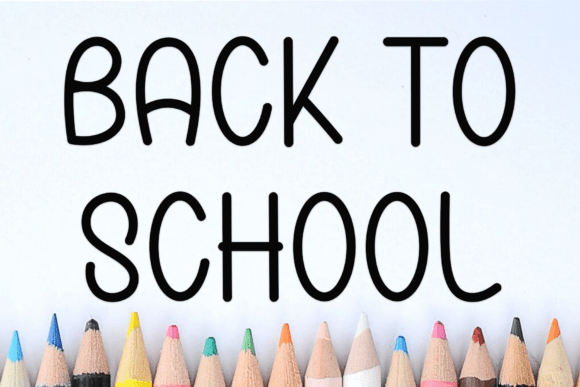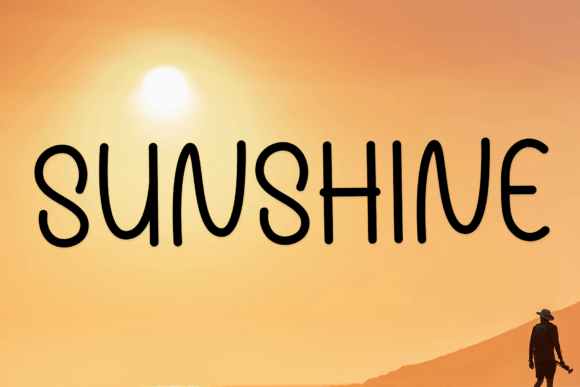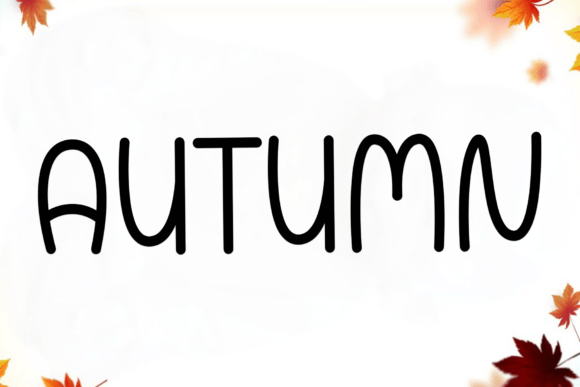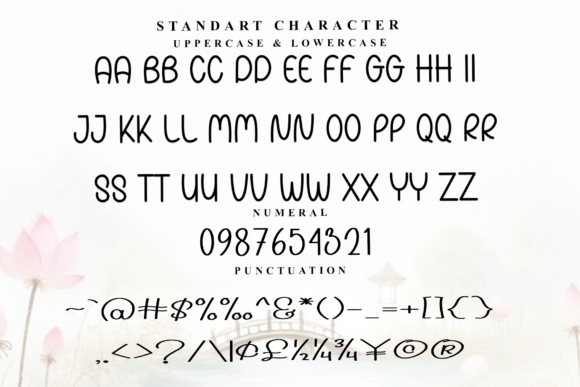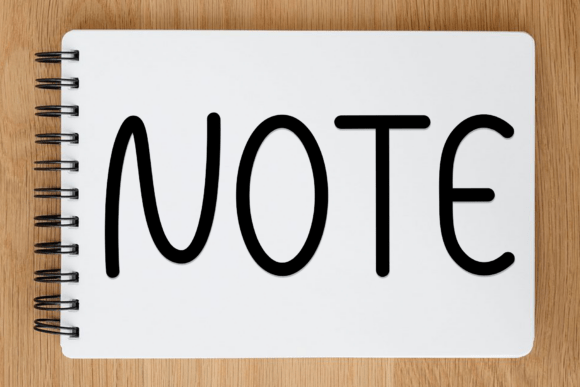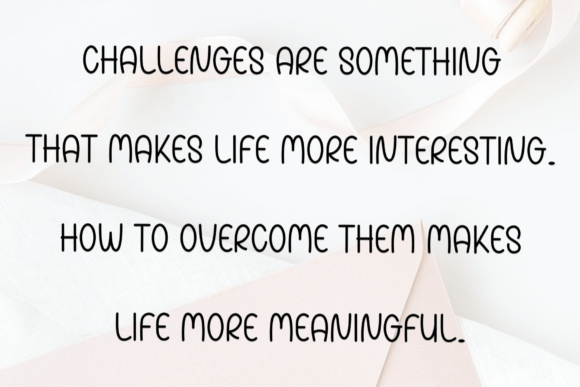
Discovering the Perfect Font for Playful Projects
As a designer, you’ve probably had that moment when you’re staring at a blank page, trying to come up with the perfect font to capture the essence of your project. It’s like searching for a missing puzzle piece – until you find it, everything else seems incomplete. For me, that moment came when I stumbled upon the delightful , a soft and friendly handmade font that instantly added a warm and playful vibe to my design.
Developed with kid-centric designs and toy packaging in mind, is the perfect choice for projects that require a rounded, clean aesthetic. Its unique charm and versatility make it a valuable addition to any designer’s toolkit. Whether you’re working on a children’s book, a toy box design, or a playful website, is sure to bring a smile to your face and delight your audience.
Hamster Font Key Features
- Font Family: Hamster Font is a sans-serif font family designed for digital and print use.
- Unique Characteristics: Features a unique, rounded design with subtle curves and a friendly feel, making it ideal for children’s books, educational materials, and other applications requiring a playful tone.
Hamster Font Review
As a designer, I was excited to try out the “Hamster Font”. Overall, I think it’s a cute and quirky addition to any design project. Here’s what I liked about it: ✨
- The font is playful and fun, perfect for creating a whimsical atmosphere.
- The character set is quite extensive, with a good variety of glyphs and symbols.
- The font is highly customizable, allowing you to adjust the size, color, and even the individual stroke widths.
However, I did encounter a few limitations: ⚠️
- The font can be a bit too cutesy for some projects, which might make it hard to use in more serious or formal designs.
- The font’s bold and italic styles can be a bit inconsistent, making it harder to create a cohesive look.
- The font doesn’t come with a lot of pre-designed templates or examples, which can make it harder for beginners to get started.
Overall, I think the “Hamster Font” is a fun and creative option for designers who want to add a bit of personality to their projects. While it has some limitations, it’s a great choice for those who want a playful and whimsical font. Just be mindful of its cutesy vibe and potential inconsistencies.
Hamster Font is perfect for creating playful and whimsical designs. Some common use cases include:
- Children’s book illustrations and storybooks.
- Party invitations and decorations.
- Quirky blog posts and social media graphics.
- Custom font for personal branding and logo design.